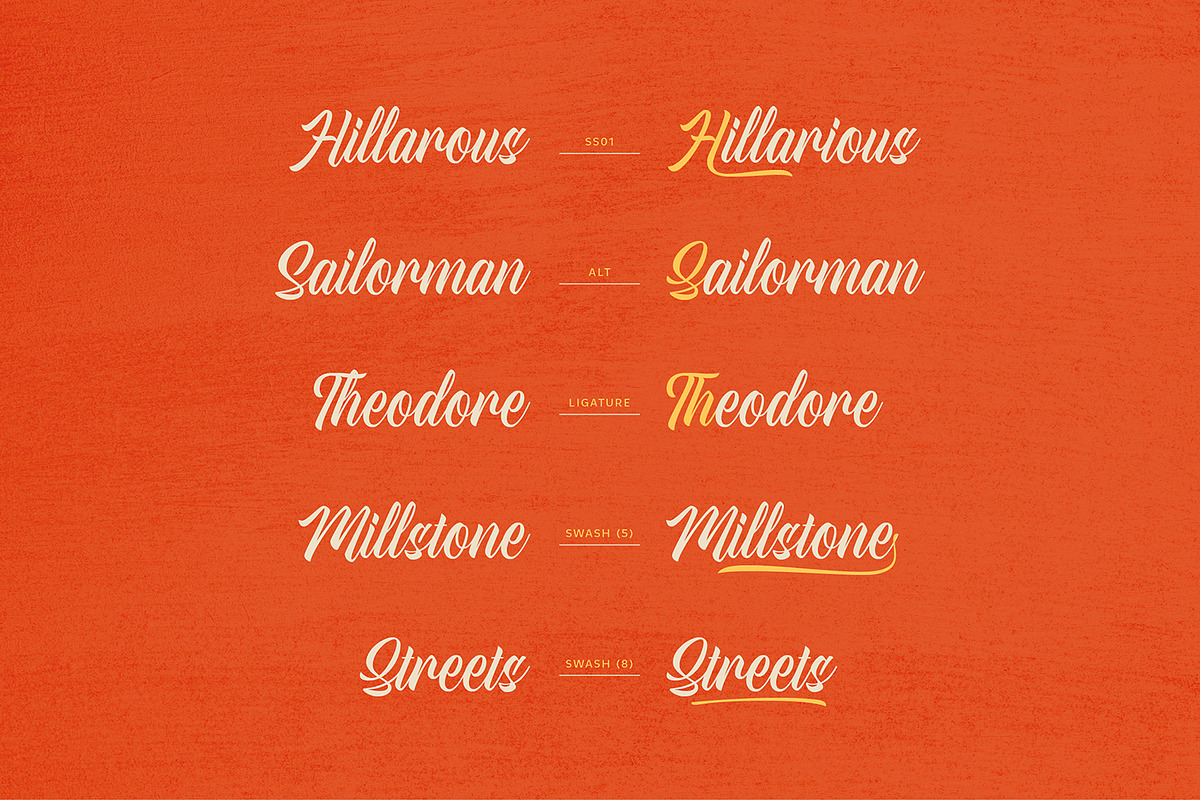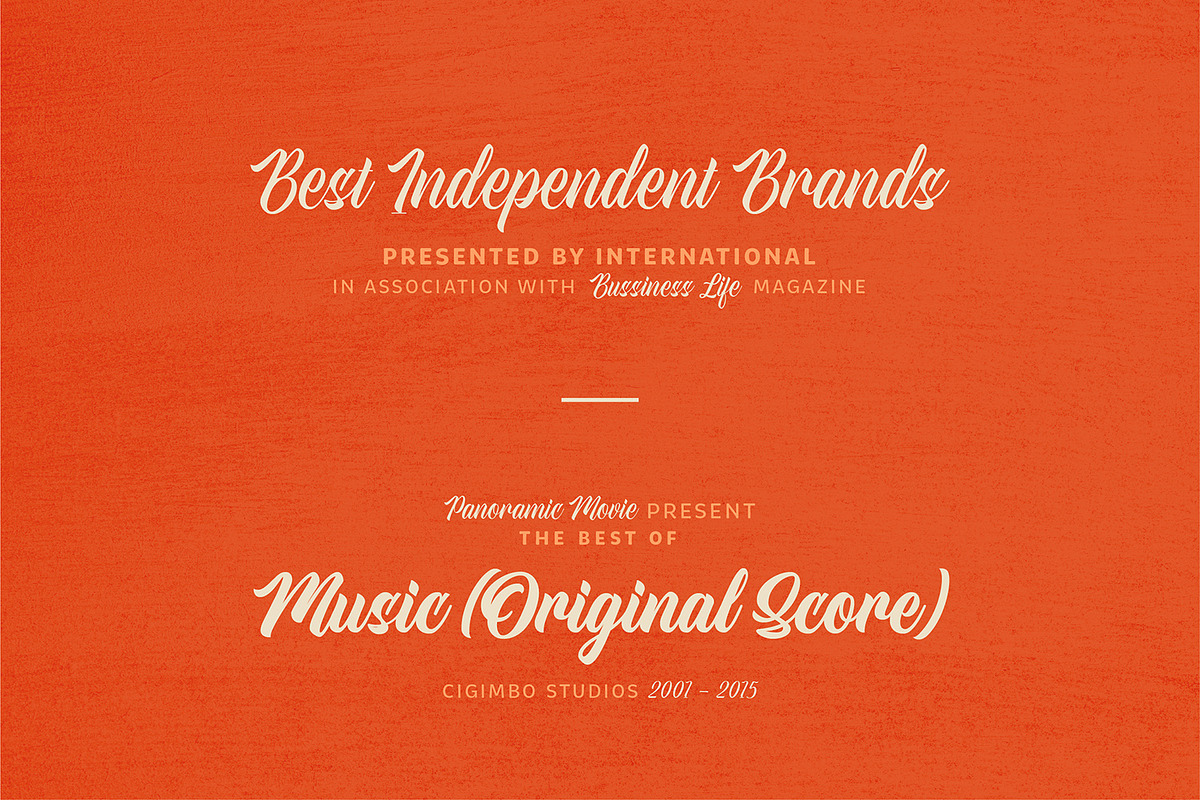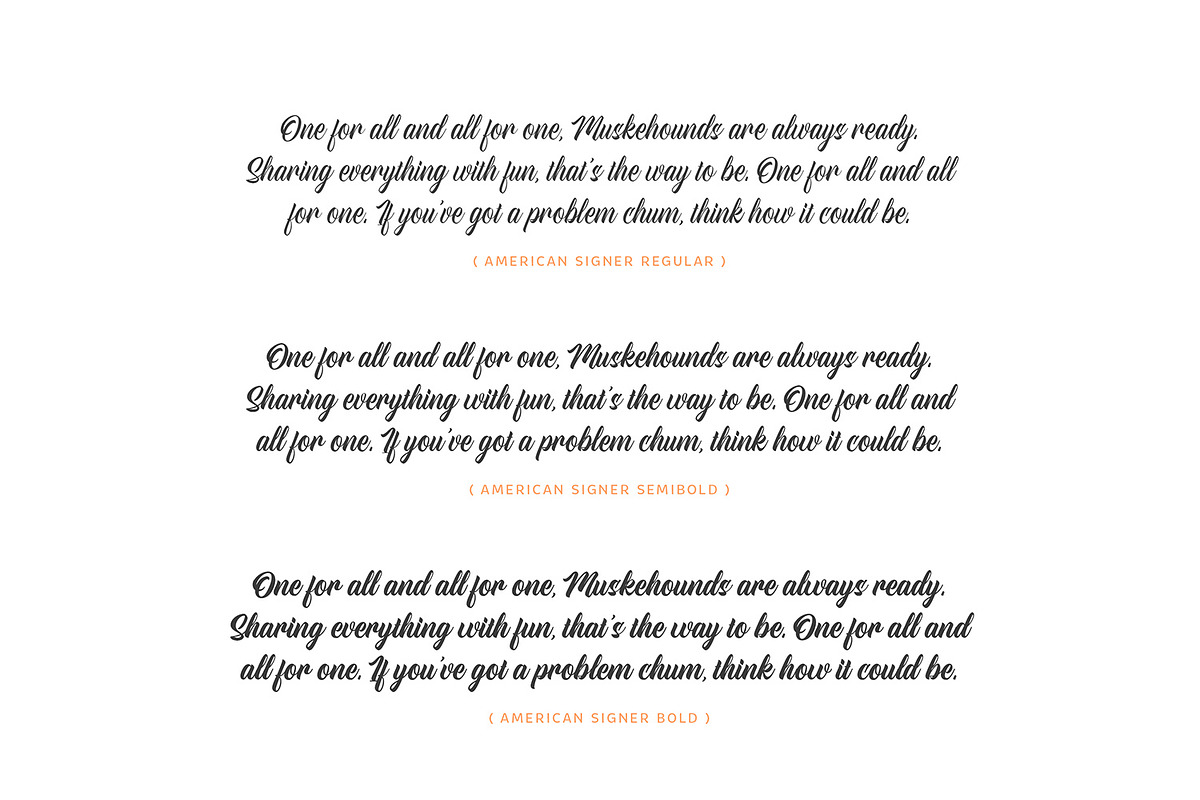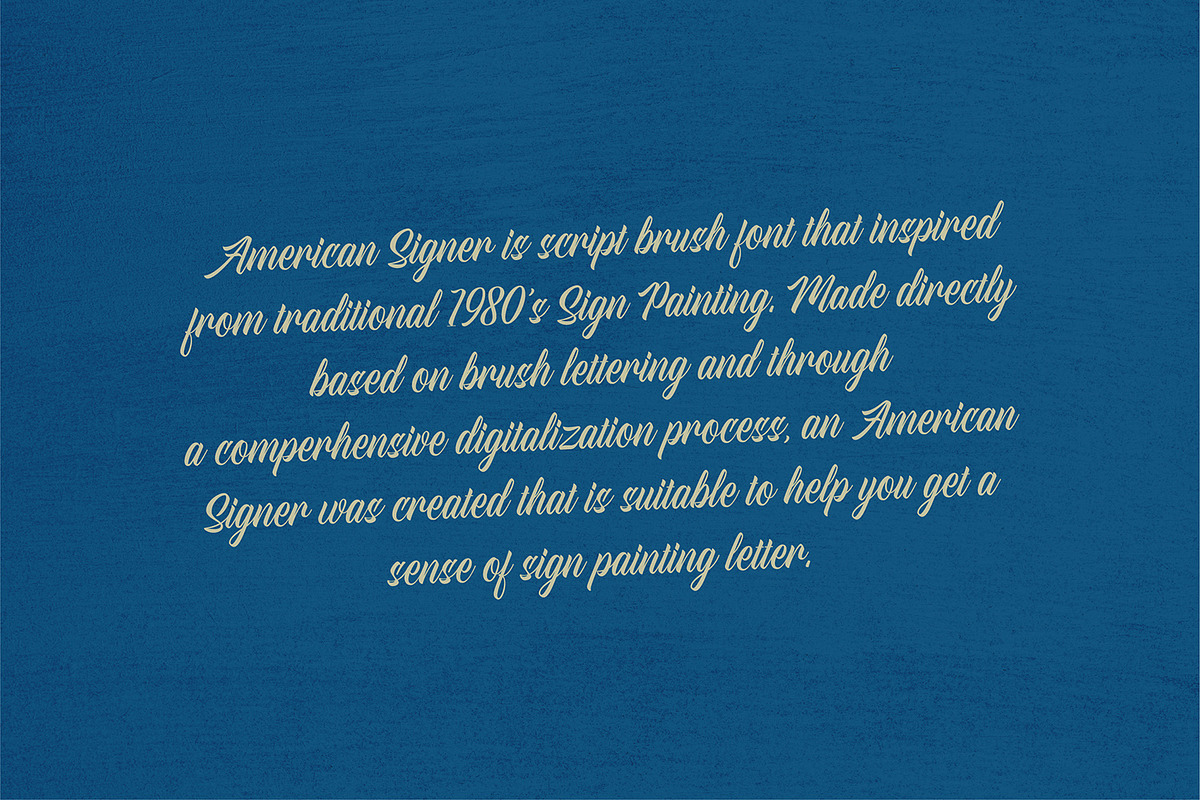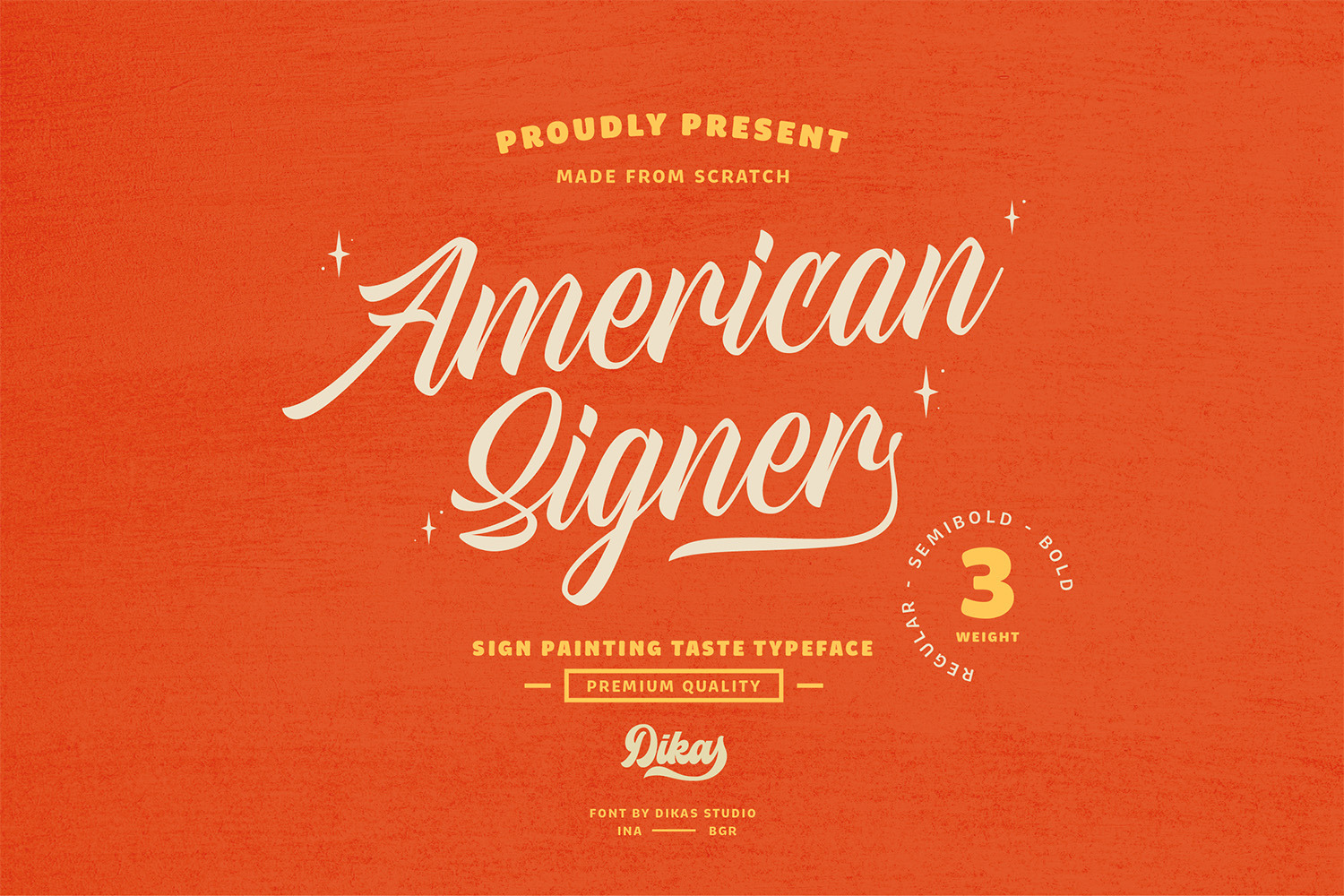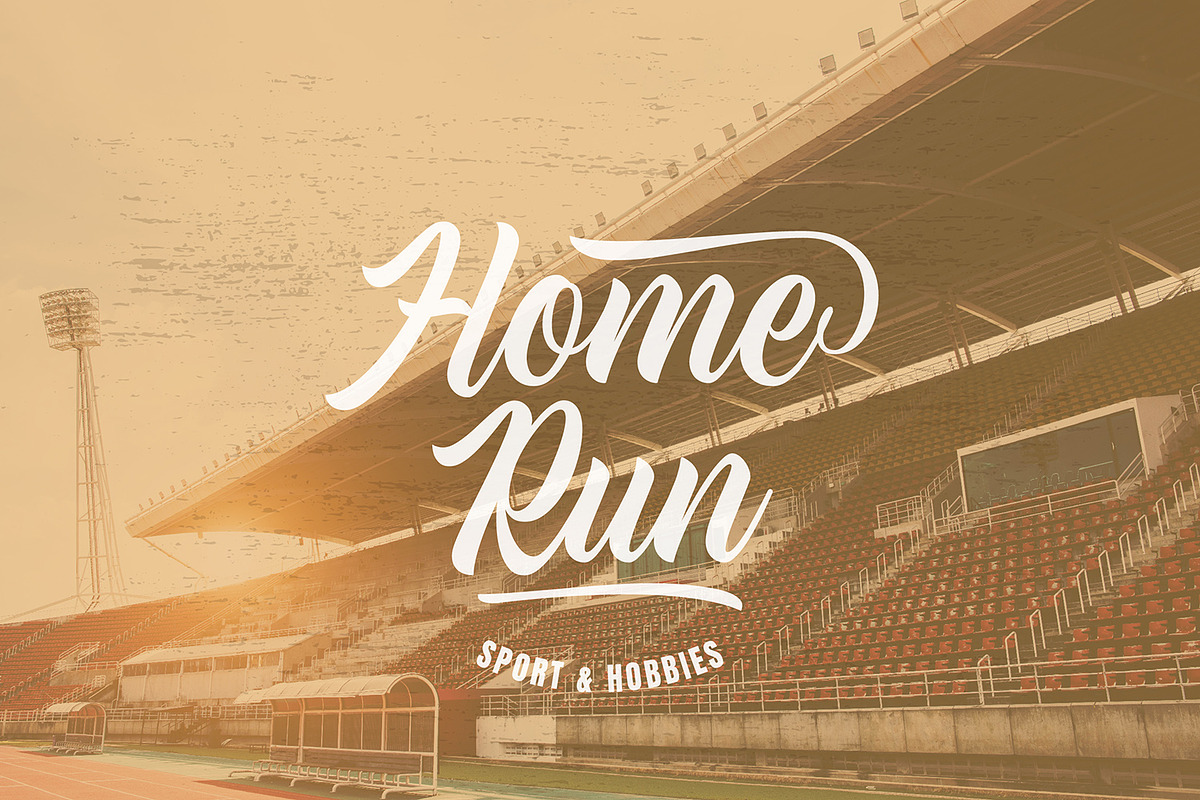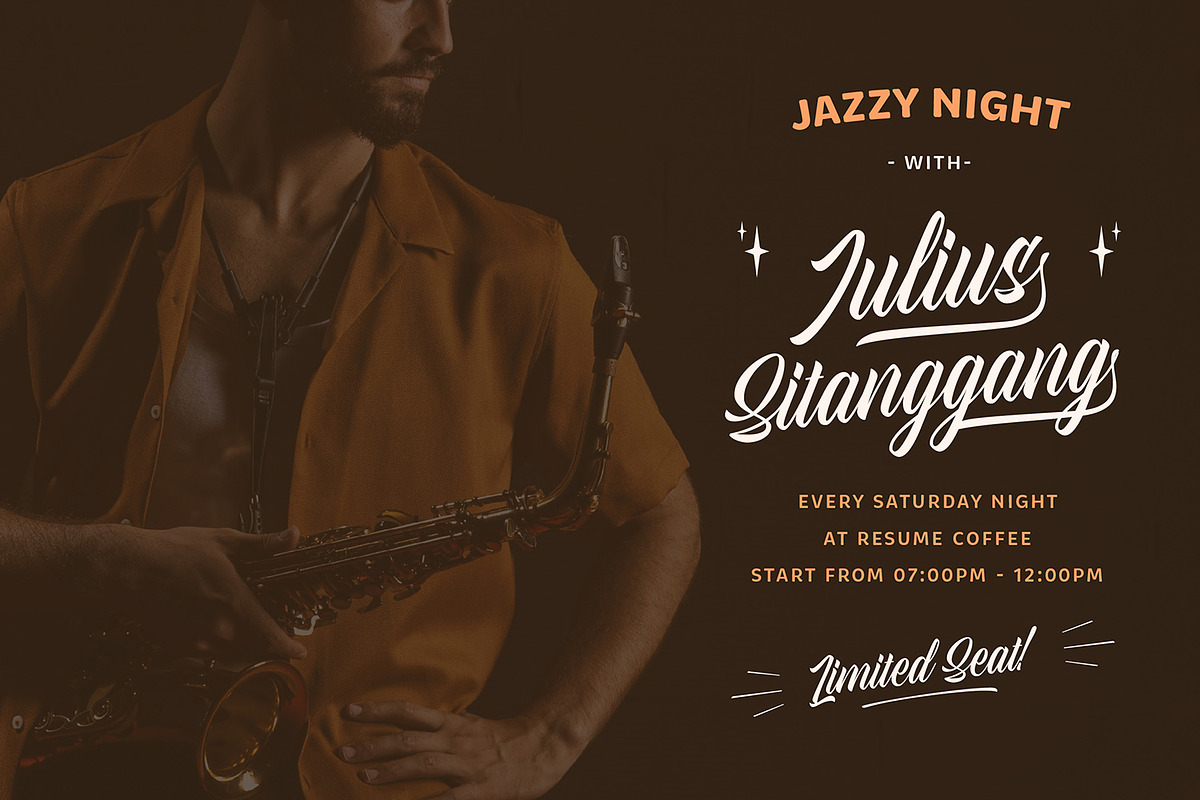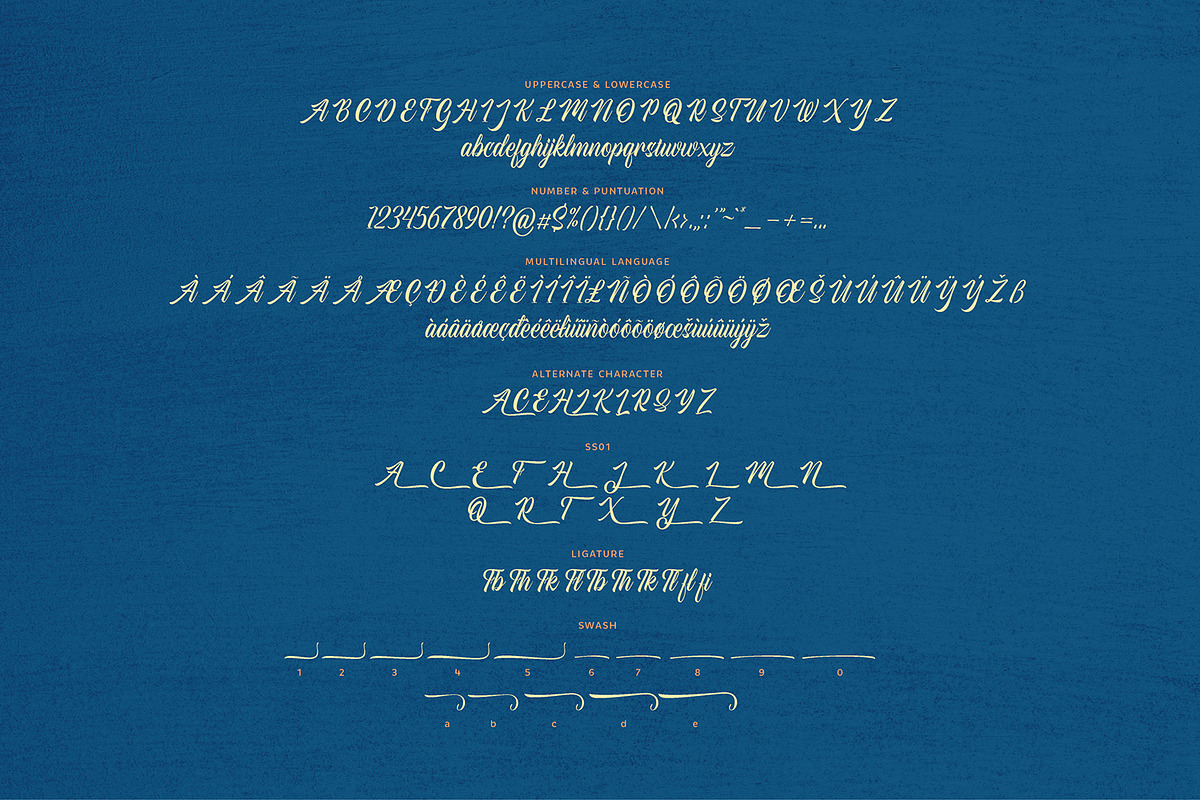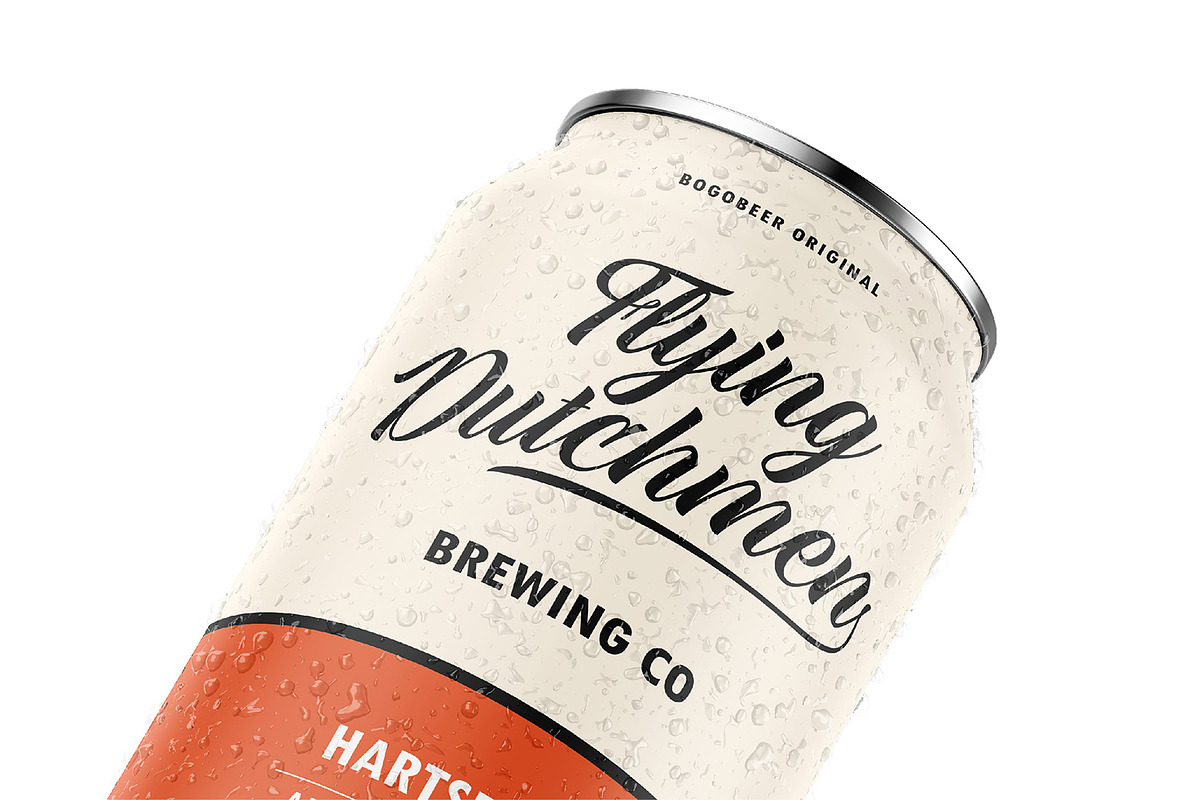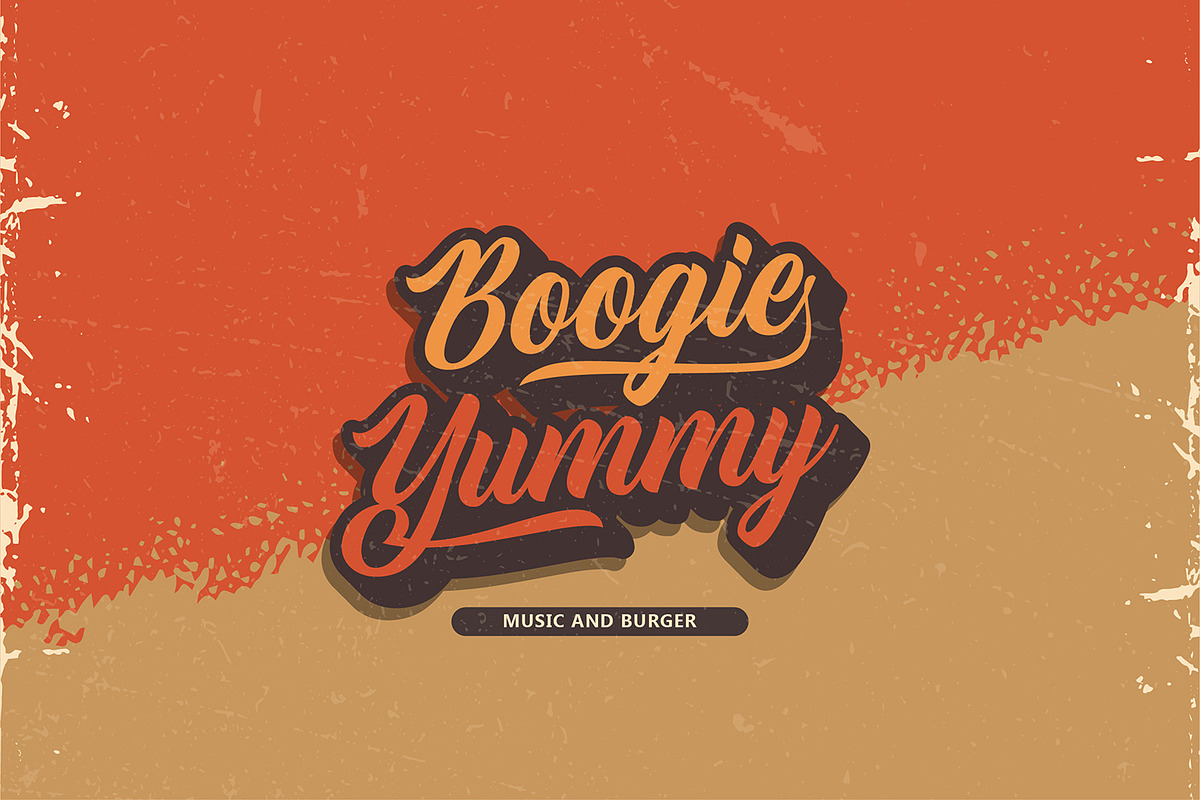
American Signer - 3 Fonts
American Signer is a script brush font that inspired from traditional 1980’s Sign Painting. Made directly based on brush lettering and through a comprehensive digitization process, an American Signer was created that is suitable to help you get a sense of sign painting letter.
American Signer comes with many ligature, alternate character and swashes that very suitable for makes logo, badge, label, packaging, certificate and other vintage design.